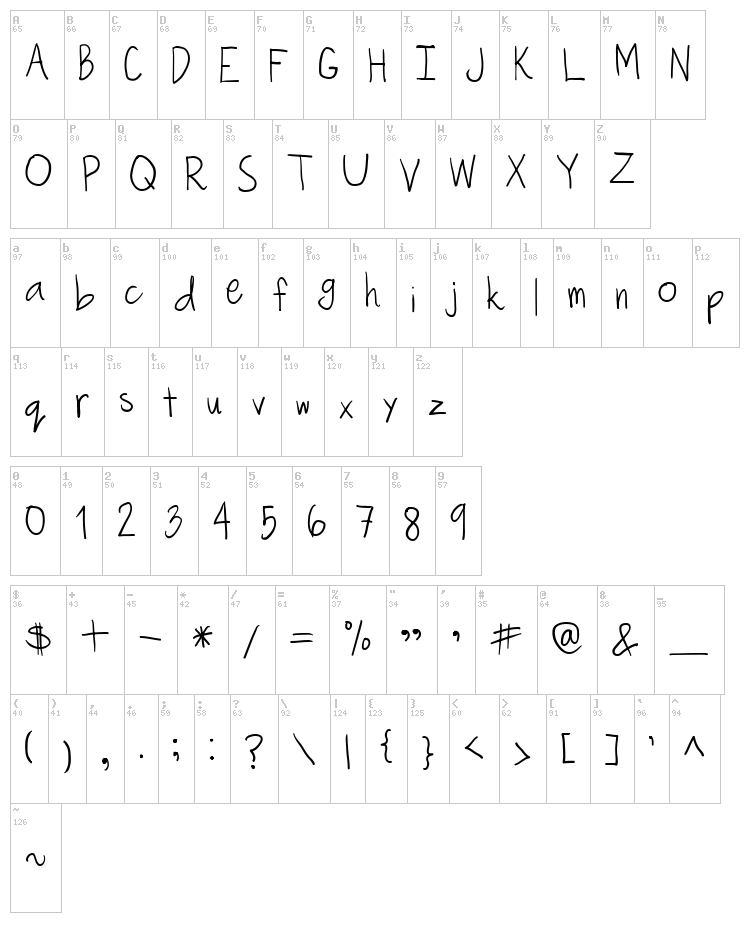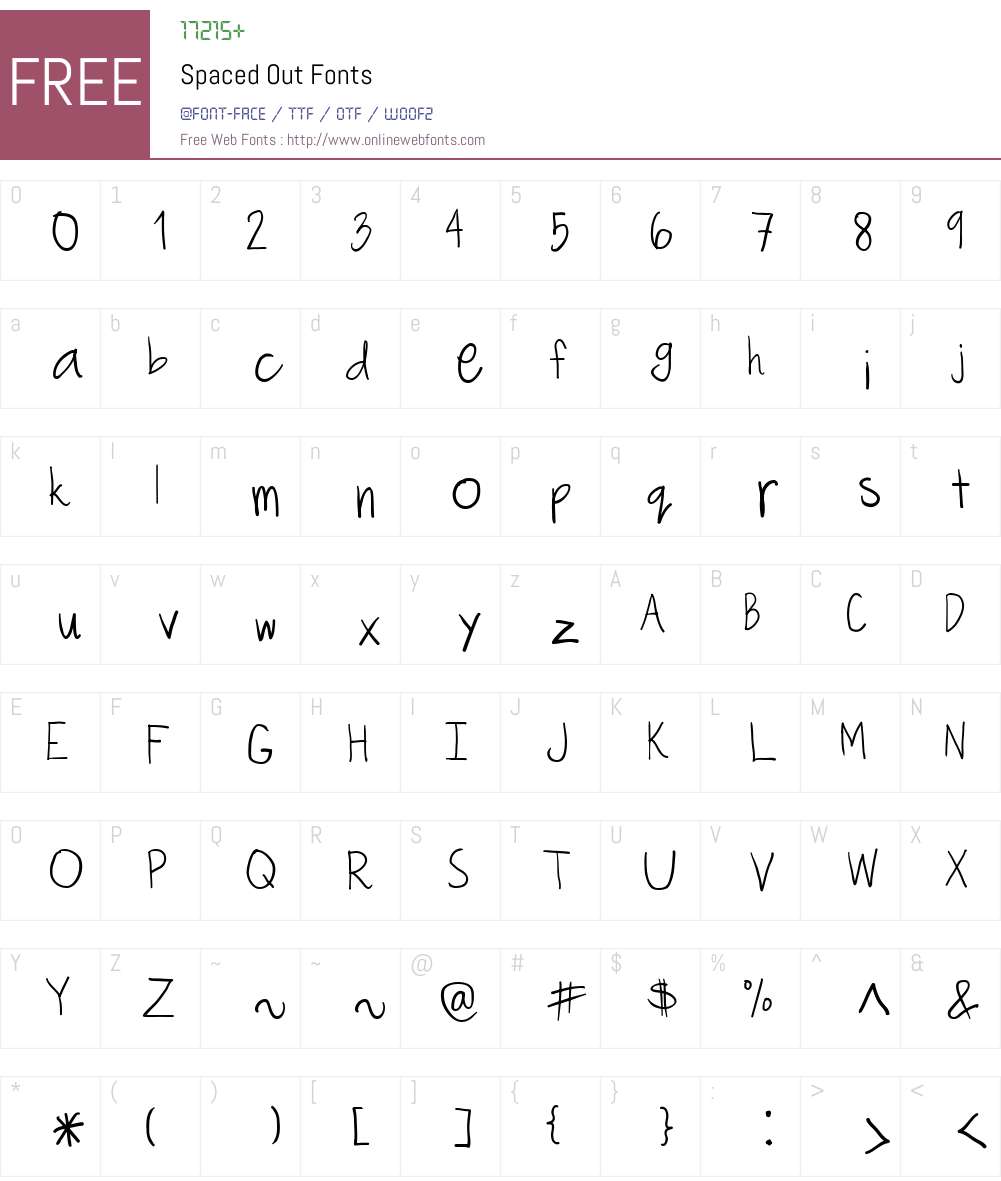
Spaced Out Fonts: The New Trend In 2023
What is Spaced Out Fonts?
Spaced out fonts, also known as “letter-spaced fonts”, is a type of typeface that is gaining popularity in 2023. The main difference between regular fonts and spaced out fonts is that the latter has a larger distance between each letter. This creates a more relaxed and casual look and feel, which is perfect for websites, blogs, and other online publications that want to stand out from the crowd. The spacing between each letter can also be customized, allowing for more creative designs. Spaced out fonts are perfect for those who want to make a statement without being too flashy.
How Can Spaced Out Fonts be Used?
Spaced out fonts can be used for a variety of different purposes. For example, they are often used to create a more casual and relaxed look for websites and blogs. They can also be used to create a modern and sophisticated look for newsletters, magazines, and other publications. Additionally, spaced out fonts can also be used to create unique logos, typography, and other graphic designs. No matter what you’re looking for, spaced out fonts are a great way to create something that stands out.
Why is Spaced Out Fonts Becoming Popular in 2023?
The popularity of spaced out fonts is growing in 2023 due to its versatility and ease of use. Spaced out fonts are easy to customize, allowing designers to create unique and creative designs with minimal effort. Additionally, spaced out fonts are also more accessible than traditional fonts, as they are available online for free or for a minimal fee. Finally, spaced out fonts are becoming increasingly popular with web designers and bloggers, as they can help create a more modern and stylish look for their websites.
Spaced out fonts are becoming increasingly popular in 2023 due to their versatility and ease of use. They can be used for a variety of different purposes, from creating unique logos to creating a more relaxed look for websites and blogs. Additionally, spaced out fonts are becoming more accessible, as they are available for free or for a minimal fee. If you’re looking for a way to make a statement without being too flashy, then spaced out fonts are the perfect choice.